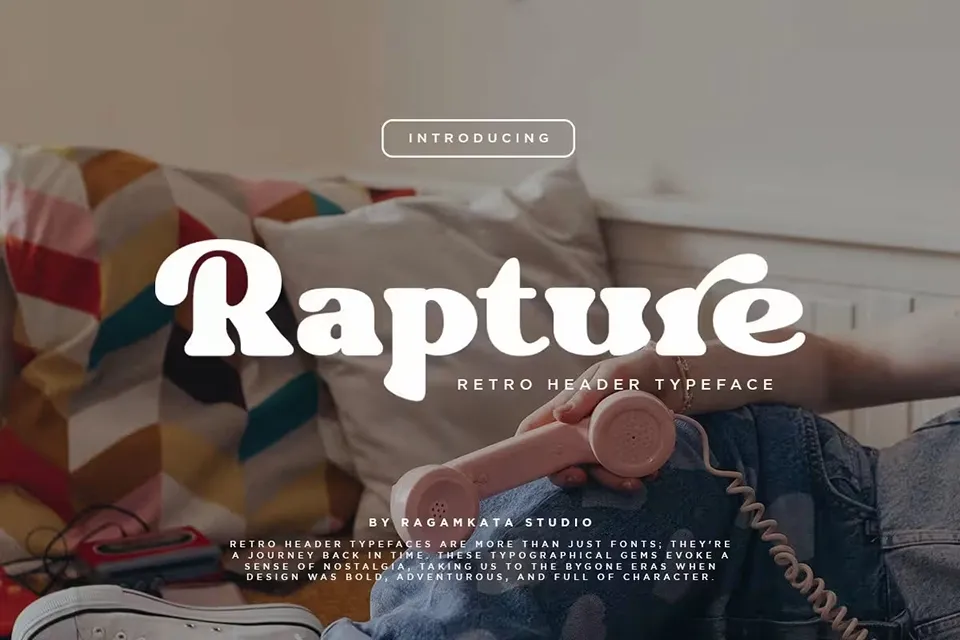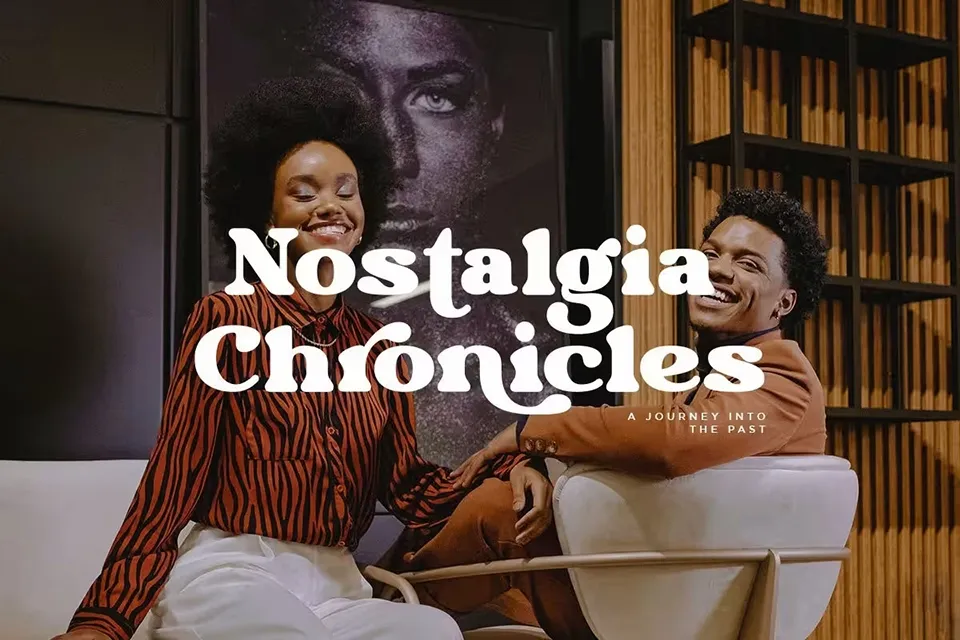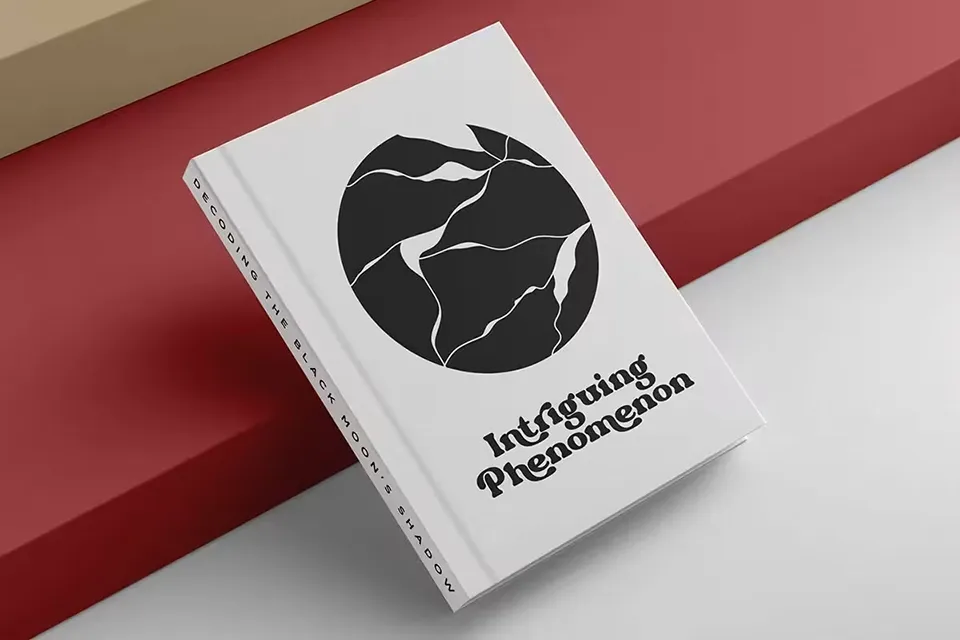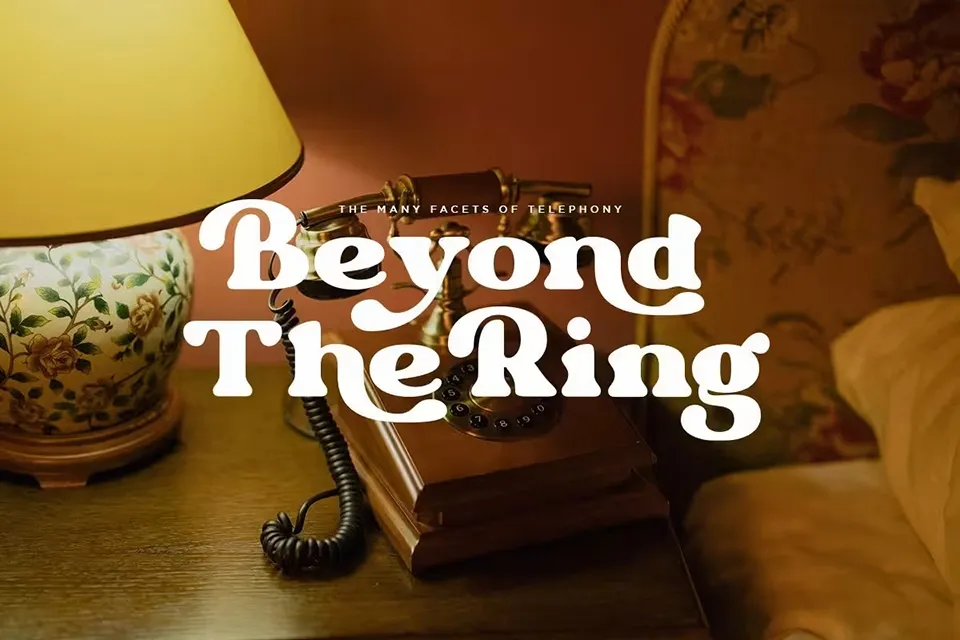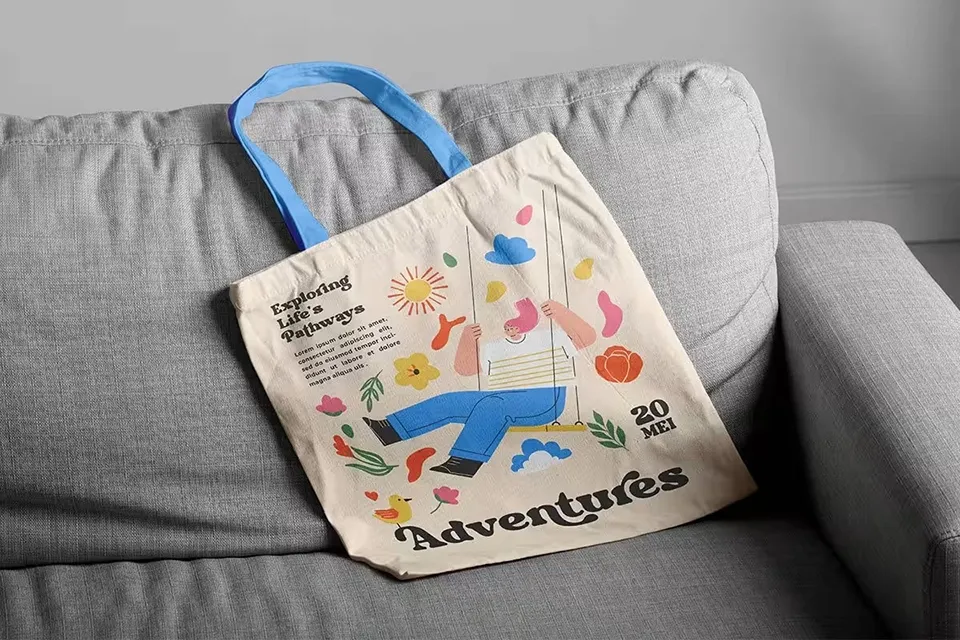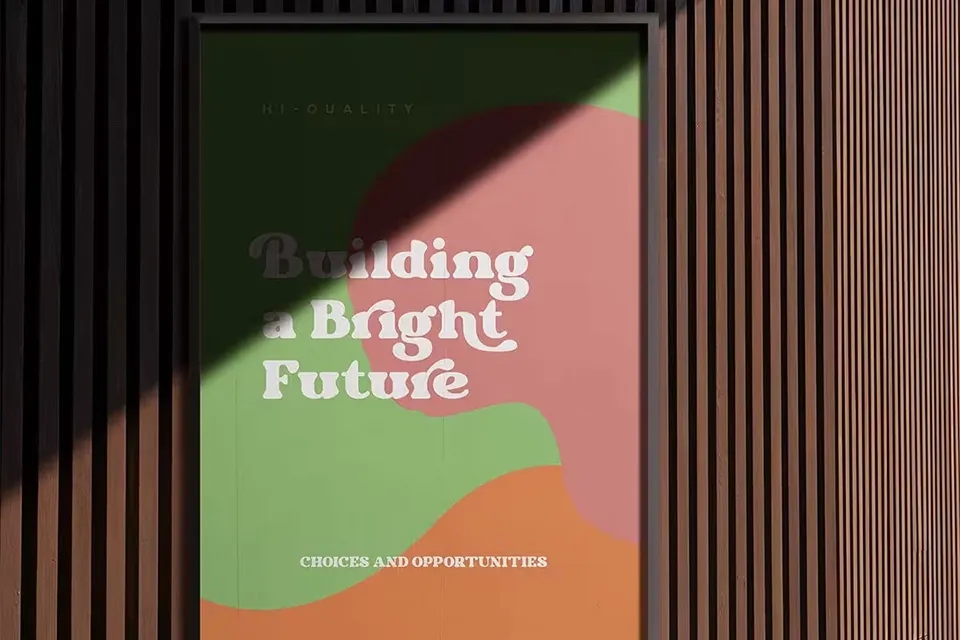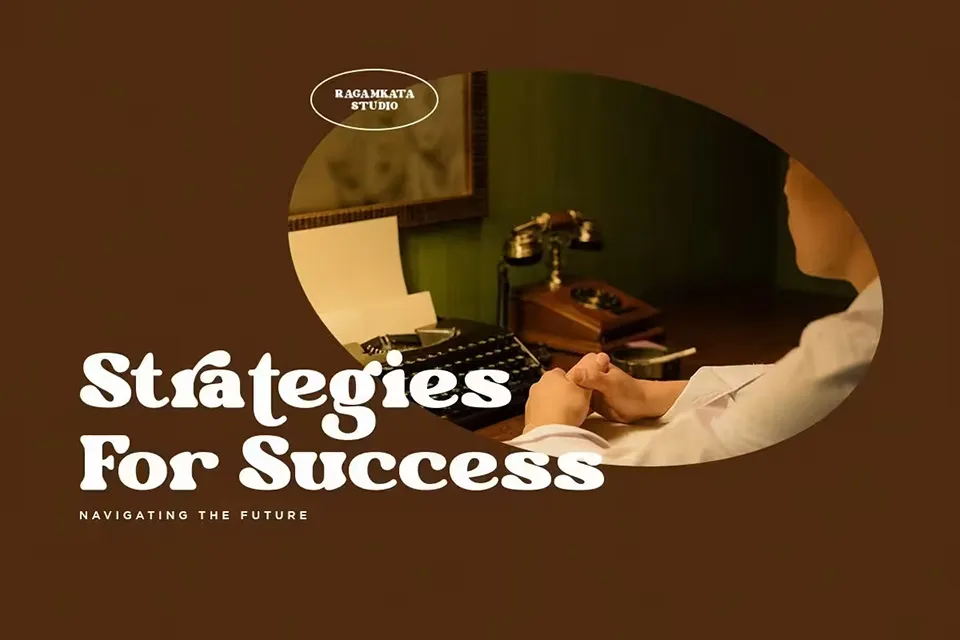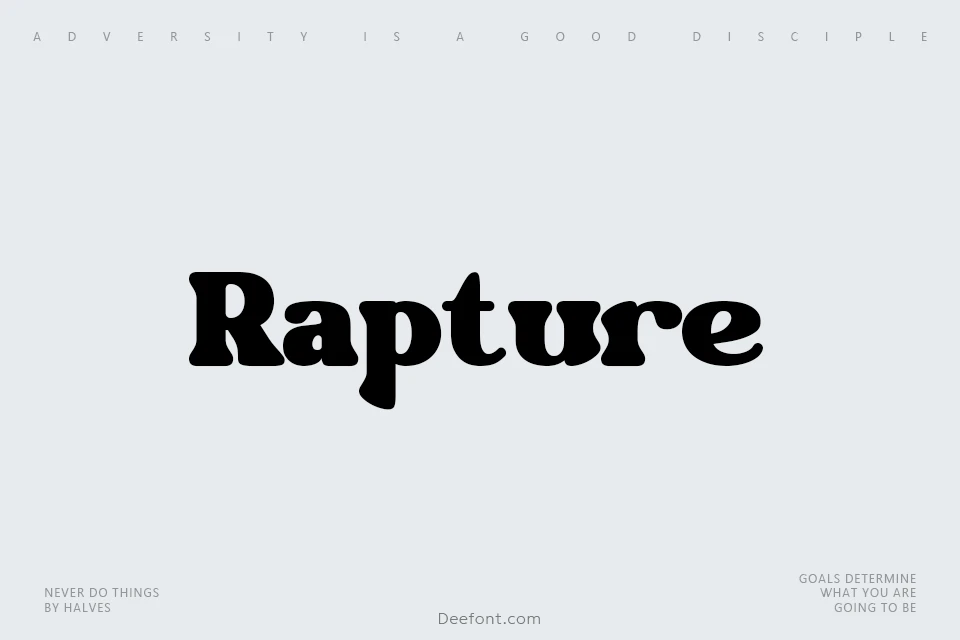
Rapture Font
Rapture Font, by Ragamkata Studio, is presented as a retro header typeface designed to evoke nostalgia. Its letterforms are bold, rounded, and possess a distinct vintage charm, reminiscent of past design eras known for being adventurous and full of character. The thick, soft-edged shapes create a friendly yet impactful look. This font aims to be more than just text; it’s described as a journey back in time. Rapture is ideal for eye-catching headlines, logos, posters, and branding projects seeking a strong retro vibe with a bold and distinctive personality.